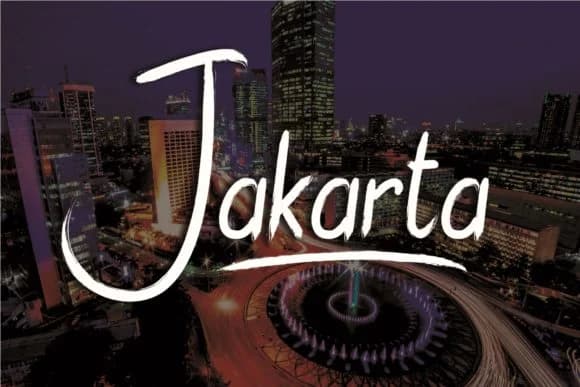
1 / 5About Mood Booster Font
The flowing curves and organic letterforms of Mood Booster, designed by Boriesbechker, capture the energy of genuine handwriting while remaining legible at any size. The letterforms feel personal and expressive, with the kind of natural rhythm that suggests someone spent time crafting each character by hand. There's a warmth here that more rigid scripts can't match, and it translates to any medium you're working in.
This font excels in intimate, human-centered projects. Wedding invitation suites benefit from its authentic character. Greeting card collections, product packaging for small makers, menu headers for local restaurants, and hand-lettered event signage all come alive with this typeface. The italic variant provides a second voice for the same design, letting you create hierarchy and emphasis without introducing a completely different aesthetic. Fashion and lifestyle brands often reach for scripts like this when launching product lines or seasonal campaigns.
Mood Booster speaks to audiences who value personality over polish. It's ideal for anyone building a visual identity where authenticity and accessibility matter more than formality. The font lives equally well on screen or in print, making it versatile for brands navigating both channels. Find it on Creative Fabrica to add this expressive typeface to your collection.
Mood Booster Font is a script font that shines as a display or heading face. Pair it with a clean sans-serif or serif font for body text β the contrast creates a clear hierarchy while the two styles stay balanced and easy to read.